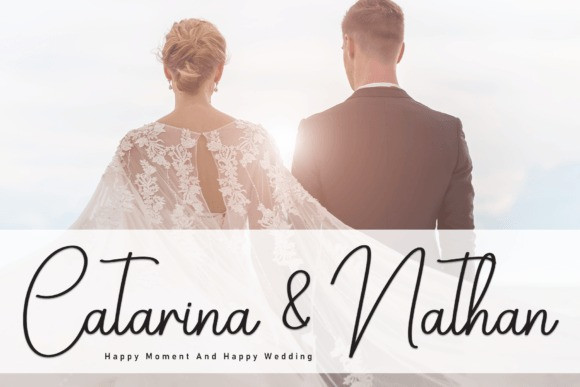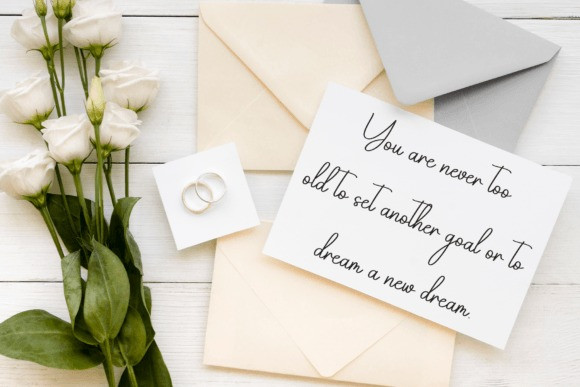
Feelinggood Font
Feelinggood Font is a sweet and friendly handwritten font. Its natural and unique style makes it incredibly fitting to a large pool of designs. The only limit is your imagination!